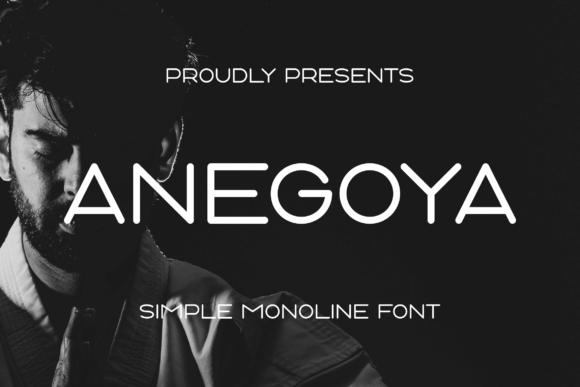
Looking for a font that will elevate your designs to new heights? Look no further than Anegoya Font, the best font for ads minimal. Created by Monoletter, this sans-serif font is sure to catch your eye with its dynamic and vibrant design.
Anegoya is not your average font. With its bold and playful style, it's perfect for creating eye-catching posters, product packaging, and social media graphics. This font's unique design is sure to make your text pop, and its bright colors will bring energy and excitement to any project.
But Anegoya isn't just a pretty face. It's also incredibly versatile, making it ideal for a variety of different projects. Whether you're designing a new ad campaign or creating a logo for your business, this font has the versatility to make your project stand out.